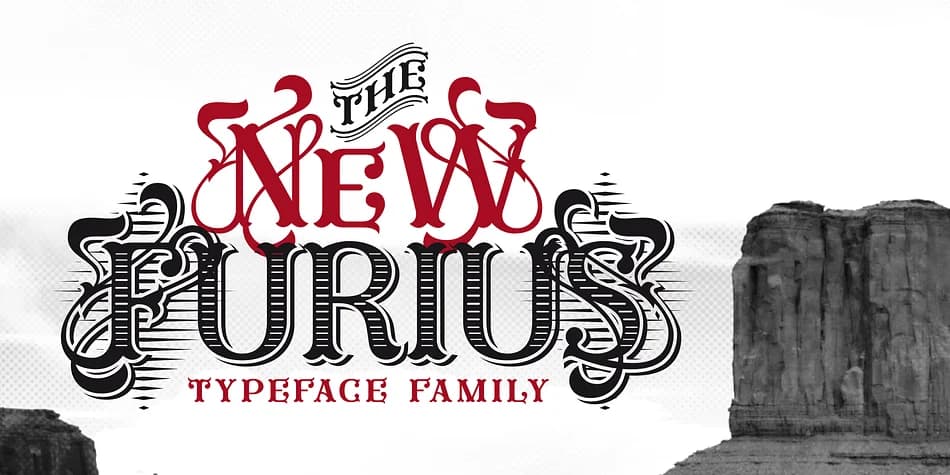
The bold geometry of split serifs defines these letterforms, those clean-edged characters carved in stone monuments and old woodcut prints from centuries long past. Designed by Typogama, Furius captures this sculptural sensibility in a display typeface, giving each letter that very distinctive chiseled quality that reads as both bold and refined. It channels Roman inscription heritage with unmistakable clarity, and its pronounced structural weight gives even straightforward text a commanding presence on any surface.
Because Furius leans into architectural heaviness and that carved sensibility, it works beautifully for specific design applications where visual impact matters most. Vintage whiskey bottle labels need this kind of gravitas, as do craft brewery packaging designs and high-end event announcements. Wood-burned cabin signs, leather goods embossing, and hand-lettered business cards all benefit from its structured, pronounced letterforms. A comprehensive OpenType feature set combines with full extended Latin and Cyrillic support, making it flexible for multilingual projects without sacrificing that carved-in-stone feeling.
This is the typeface for designers working on projects that demand real visual authority and a distinct touch of Old West nostalgia. Reach for Furius on Creative Fabrica when you need striking lettering that feels substantial, rooted in tradition, and ready to command attention.
Furius Font is a decorative font that shines as a display or heading face. Pair it with a clean sans-serif or serif font for body text β the contrast creates a clear hierarchy while the two styles stay balanced and easy to read.